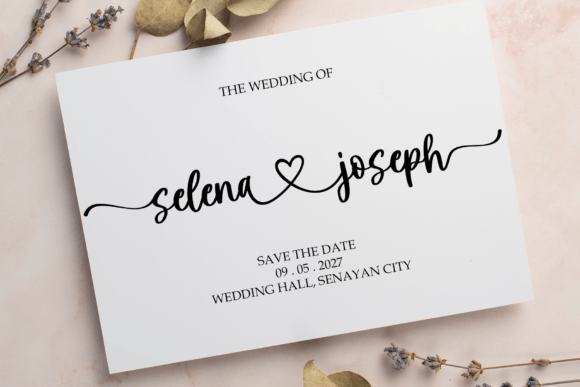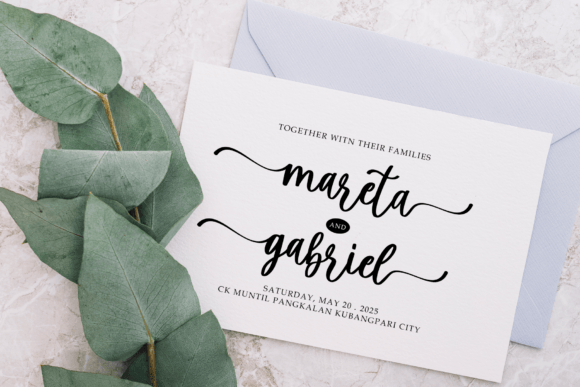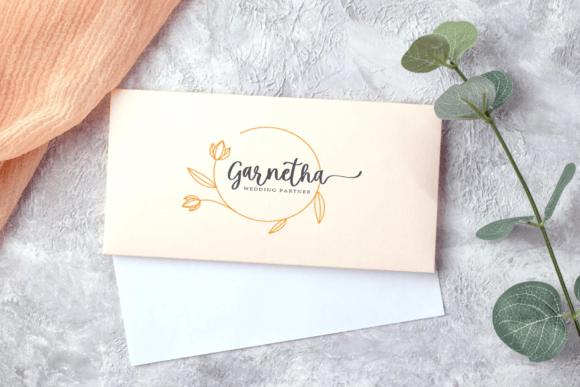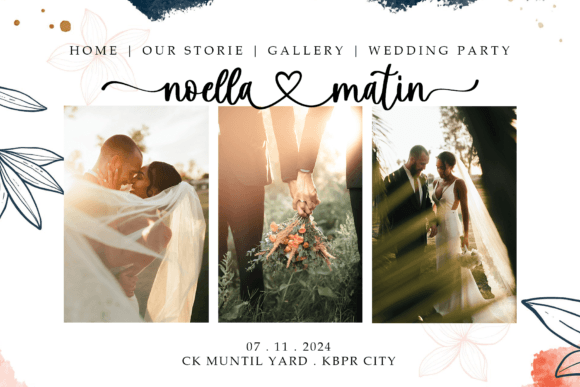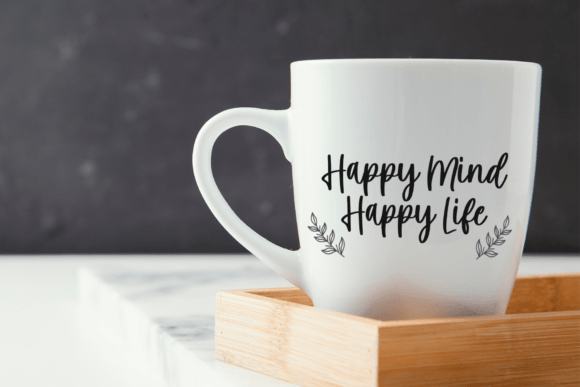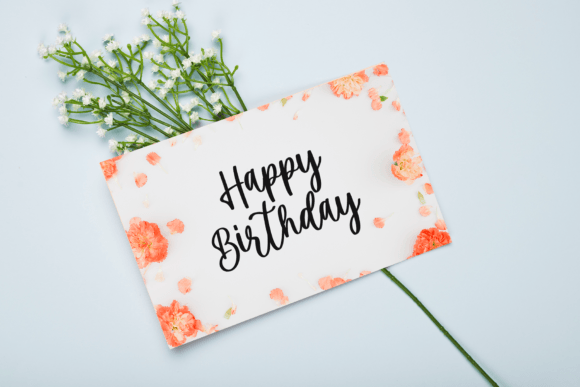
Introduction to Mila Love Font
Introducing Mila Love, a beautifully crafted script font that exudes elegance and romance.
Featuring unique connecting hearts, ligatures, and exquisite beginning and ending swashes, Mila Love is perfect for a wide range of design projects such as wedding invitations, branding, packaging, social media graphics, and handwritten quotes The delicate and romantic design, along with its versatile application, makes Mila Love an essential addition to your font collection.
Key Features of Mila Love Font
Why Choose Mila Love Font?
Mila Love Font offers exceptional quality and versatility, making it a valuable addition to your design toolkit. Whether you’re creating for personal projects or commercial use, Mila Love Font delivers professional results.